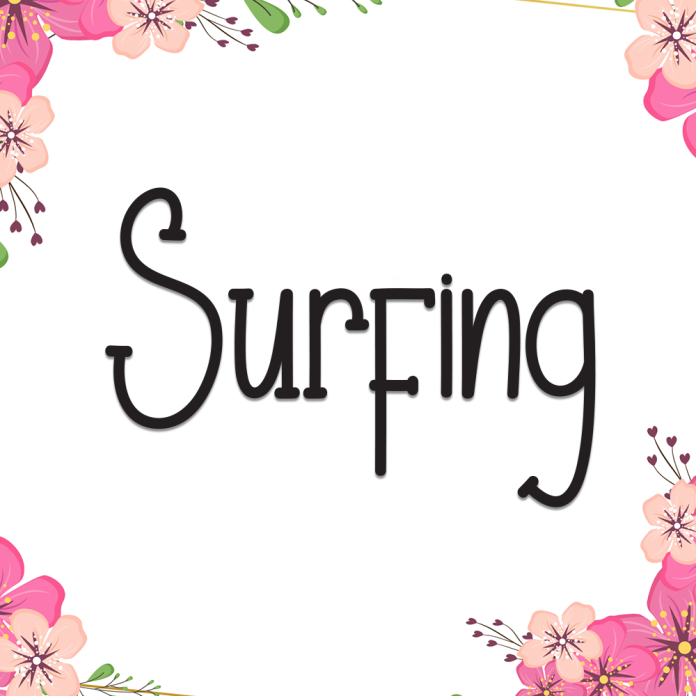
Surfing is a lively and energetic display font that captures the carefree vibe of ocean waves and summer adventures. With bold curves and a dynamic structure, this font brings excitement and movement to any design.
Perfect for summer-themed posters, beach party invitations, t-shirts, branding, and youth-centered content, Surfing makes your message ride the wave of creativity.
Fun and energetic display style
Great for beach events, travel designs, apparel, and digital art
Eye-catching letterforms with a playful twist
Includes uppercase, lowercase, numbers, punctuation
Catch the creative wave with Surfing — where every word feels like summer.